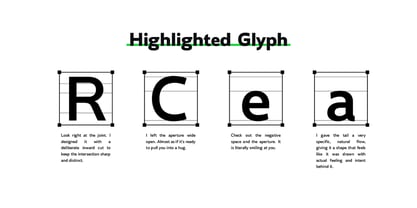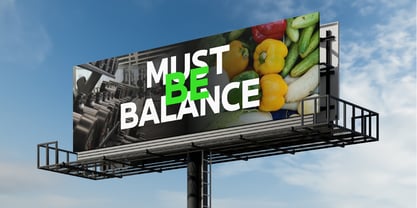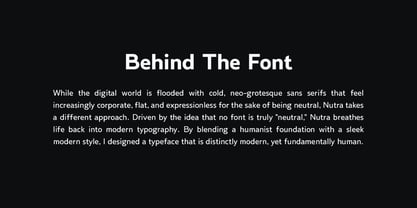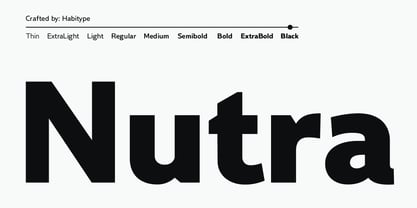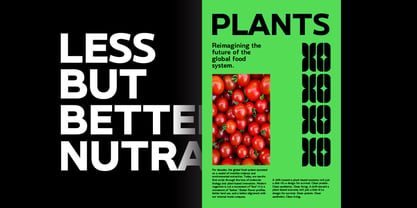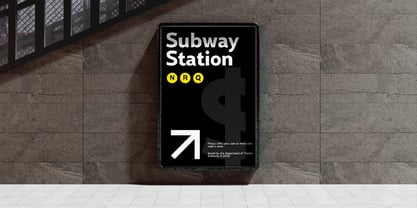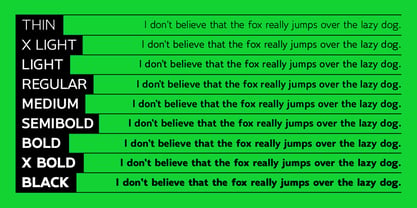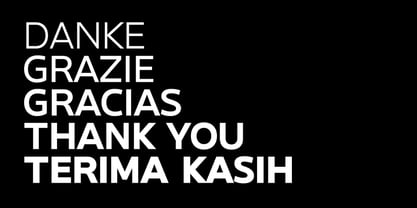
Nutra
by Habitype
The Nutra Font Family was designed by Fahrul Saputra and published by Habitype. Nutra contains 8 styles and family package options. More about this family
Nutra is a contemporary humanist sans serif family comprising 8 fonts. Challenging the convention of cold, expressionless neo-grotesques, Nutra is designed with a careful balance of sleek modern geometry and organic humanist foundations.
The family spans a wide range of weights from Thin to Black, Nutra offers flexible typographic expression for forward-thinking branding, editorial design, digital interfaces, and display applications.
Driven by the philosophy that absolute neutrality is a myth, Nutra breathes life into modern typography by introducing subtle, organic letterforms resulting in a typeface that is distinctly modern, yet fundamentally human.